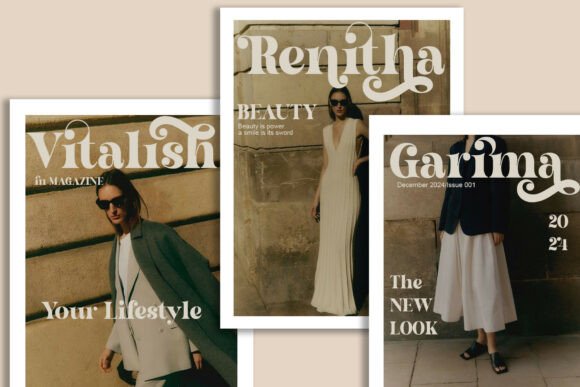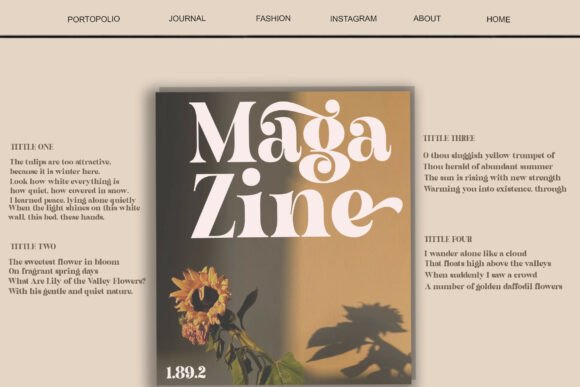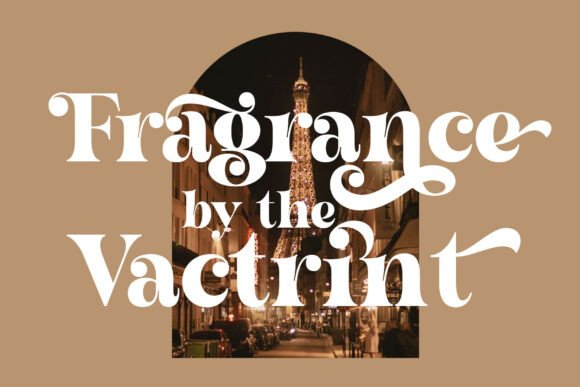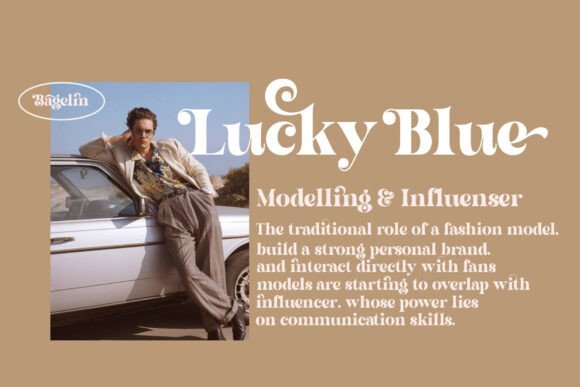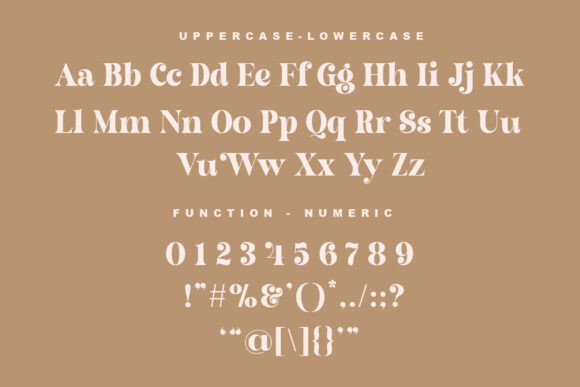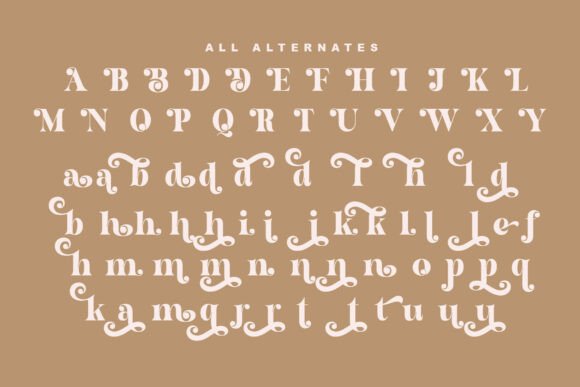
Introducing Bagelin Font: The Epitome of Sophistication and Elegance
In the realm of typography, few fonts manage to strike a balance between classic vintage charm and modern sophistication. Bagelin, a serif display font, is one such exceptional typeface that seamlessly merges the best of both worlds. With its high-contrast strokes, artistic alternates, and ligatures, Bagelin exudes an air of premium craftsmanship and professional elegance, making it an ideal choice for designers and crafters seeking to elevate their projects.
Design Characteristics and Features
Bagelin’s design is characterized by its high-contrast strokes, which lend a sense of drama and flair to the font. The exceptionally artistic stylistic alternates and ligatures add a layer of sophistication, allowing designers to create unique and visually appealing text arrangements. The font’s sweeping curves and dramatic flourishes evoke a sense of luxury and refinement, perfect for contemporary branding projects that demand a high-end feel.
Versatility and Application
One of the standout features of Bagelin is its versatility. This font is suitable for a wide range of projects, including:
- Books and magazines: Add a touch of elegance to your publication with Bagelin’s sophisticated serif design.
- Logo and branding: Create a lasting impression with a custom logo that exudes premium craftsmanship.
- Photography: Use Bagelin to add a touch of sophistication to your photo captions, quotes, or blog headers.
- Posters and advertisements: Make a statement with Bagelin’s dramatic flourishes and high-contrast strokes.
Bagelin comes with a range of technical features that make it easy to use and integrate into various design projects. The font includes:
- Uppercase and lowercase letters
- Numerals and functional characters
- Multilingual support
- Ligatures for added typographic flexibility
Why Choose Bagelin Font?
For designers and crafters seeking a font that embodies sophistication and elegance, Bagelin is an exceptional choice. Its unique blend of classic vintage charm and modern refinement makes it perfect for projects that demand a high-end feel. With its versatility, technical features, and artistic design elements, Bagelin is sure to elevate your design projects and leave a lasting impression on your audience.
In conclusion, Bagelin font is a masterpiece of typographic design that offers a perfect blend of classic charm and modern sophistication. Its high-contrast strokes, artistic alternates, and ligatures make it an ideal choice for designers and crafters seeking to add a touch of elegance to their projects. With its versatility, technical features, and exceptional design, Bagelin is sure to become a go-to font for a wide range of applications.